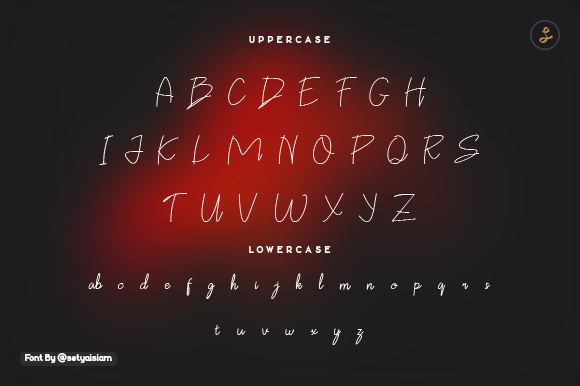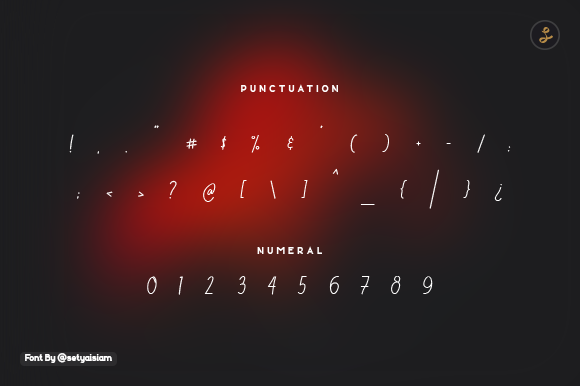
Introduction to Ka Claudya Font
As a designer, there’s nothing quite like the rush of finding the perfect font for a project. It’s the moment when all the pieces come together, and your creative vision starts to take shape. For me, that moment happened when I stumbled upon the Ka Claudya Font. Its elegant and classic style immediately caught my eye, and I knew I had to learn more.
The Ka Claudya Font is more than just a pretty face – it’s a valuable resource for designers looking to add some sophistication to their work. With its friendly feel and high-quality design, it’s the perfect addition to any creative project. Whether you’re working on a branding project or creating a stunning graphic, Ka Claudya Font is sure to make your designs stand out.
Key Features of Ka Claudya Font
- High-quality design resource suitable for various creative projects, including digital art and graphic design.
- Features a transparent background, making it easy to use in various design scenarios and providing a clean, minimalist look.
- Designed with a unique, elegant style that is perfect for a wide range of applications, from titles and headings to body text.
- Includes a range of glyphs and characters, ensuring that you have all the tools you need to create professional-looking designs.
- Supports various languages, making it a versatile design resource for global creative projects.
Honest Review: Ka Claudya Font
I recently had the chance to work with the Ka Claudya Font for a creative project, and I was pleasantly surprised by its versatility. The font offers a unique blend of elegance and playfulness, making it perfect for a wide range of design applications.
One of the standout features of the Ka Claudya Font is its high quality and smooth texture, which makes it easy to read and use even in small sizes. The font also features a transparent background, allowing for seamless integration with other design elements.
Here are some of the things that work well with the Ka Claudya Font:
- ✨ High quality and smooth texture
- ✨ Unique blend of elegance and playfulness
- ✨ Perfect for a wide range of design applications
- ✨ Easy to read and use even in small sizes
- ⚠️ Limited character set (only includes uppercase and lowercase letters, numbers, and basic punctuation)
- ⚠️ May not be suitable for complex or detailed designs
Alternatives to Ka Claudya Font
The Great Vibes Font is a beautiful, elegant script font ideal for creative projects requiring a high-quality design resource. It features a transparent background, making it perfect for overlays and other design elements. This font is great for use in wedding invitations, branding materials, and other promotional items.
Comparison to Ka Claudya Font: Great Vibes Font has a more delicate and refined feel, making it suitable for projects that require a touch of sophistication. While Ka Claudya Font is great for playful and casual designs, Great Vibes Font is better suited for more formal and elegant projects.
Pacifico Font is a modern script font that exudes a sense of calm and serenity. It’s perfect for creative projects that require a high-quality design resource with a transparent background. This font is great for use in branding materials, social media graphics, and other design elements that require a touch of sophistication.